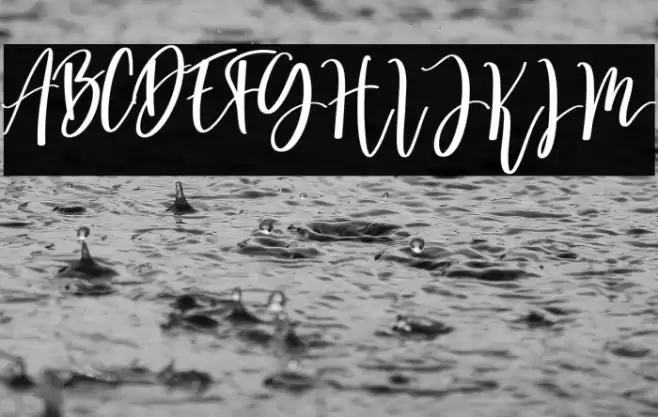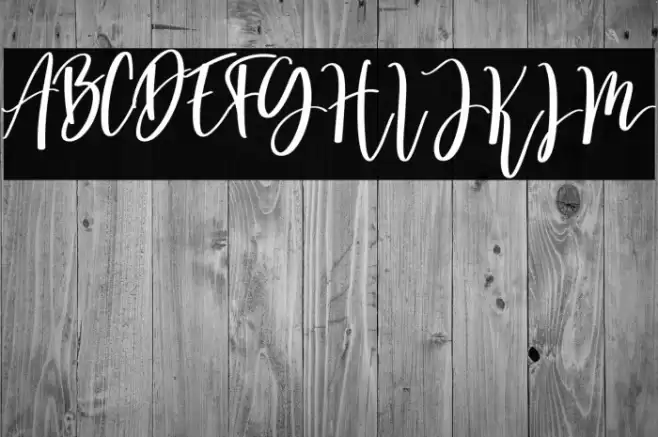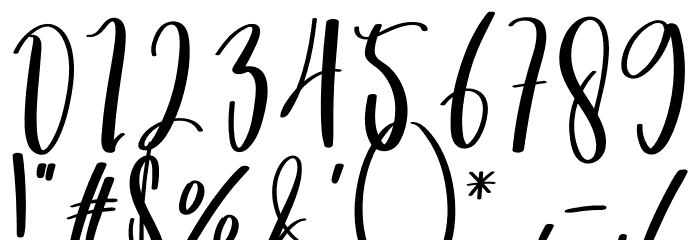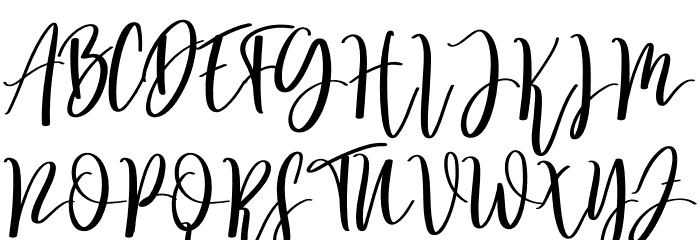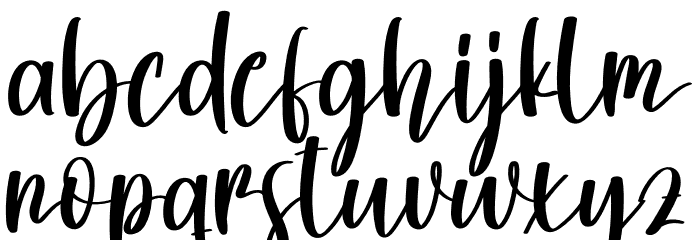
Pink Cream Font
Pink Cream Description
This font exhibits a lively and expressive script style, characterized by its fluid and dynamic strokes. The uppercase letters are bold and sweeping, with a sense of movement that suggests a handwritten quality. The lowercase letters maintain a consistent flow, with elegant loops and curves that enhance its artistic appeal. Numbers are crafted with the same attention to detail, ensuring they complement the overall aesthetic. Special characters are thoughtfully designed, maintaining the font's cohesive look. The font's overall appearance is both playful and sophisticated, making it suitable for a variety of creative applications.
A lively and expressive script font with fluid, dynamic strokes and a handwritten quality from Uncategorized fonts.
- Font: Pink Cream
- Proposed Projects: Ideal for wedding invitations, greeting cards, branding projects, and any design that requires a personal, artistic touch.
- Use Case: Logos, Invitations, Artistic projects